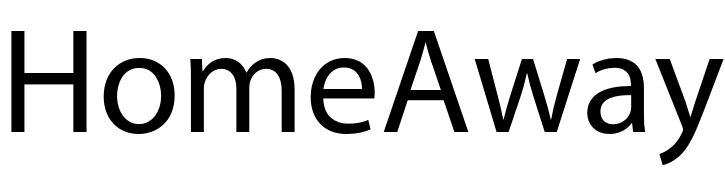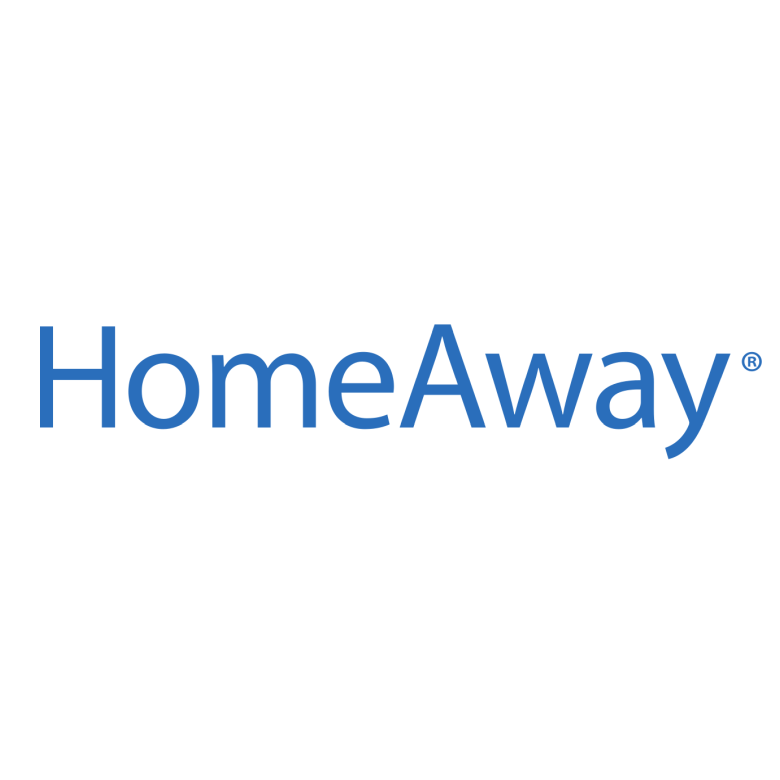
HomeAway Logo Font
Fonts in UseHomeAway is an online marketplace where property owners can list and rent out their vacation homes, apartments, and other types of accommodations to travelers looking for short-term rentals. It is owned by Expedia Group.
HomeAway uses the Myriad typeface, a humanist sans serif font created by Robert Slimbach and Carol Twombly for Adobe in 1992. You can view and learn more about the typeface here.